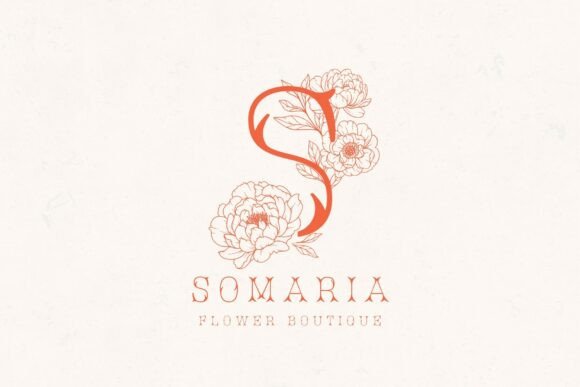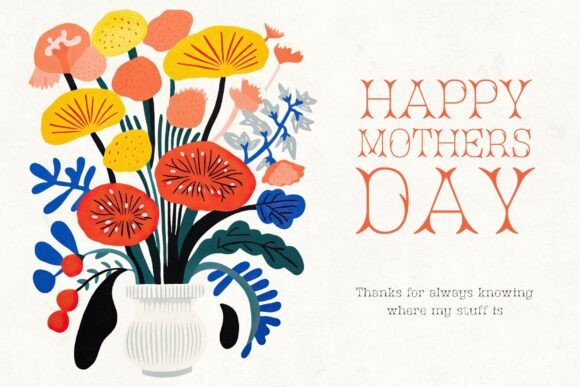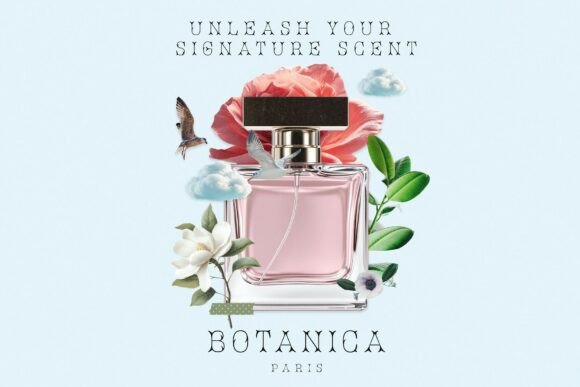
Introduction to Fernaria Font
Step into timeless elegance with Fernaria, a stunning serif typeface where vintage charm meets modern sophistication.
With graceful curves and delicate strokes, Fernaria draws inspiration from the romantic flow of Art Nouveau, all while maintaining a contemporary edge that feels fresh, stylish, and undeniably feminine Every letterform in Fernaria has been thoughtfully crafted to exude beauty and versatility, perfect for brands that crave distinction, social media designs that demand attention, and editorials or posters that tell a captivating story.